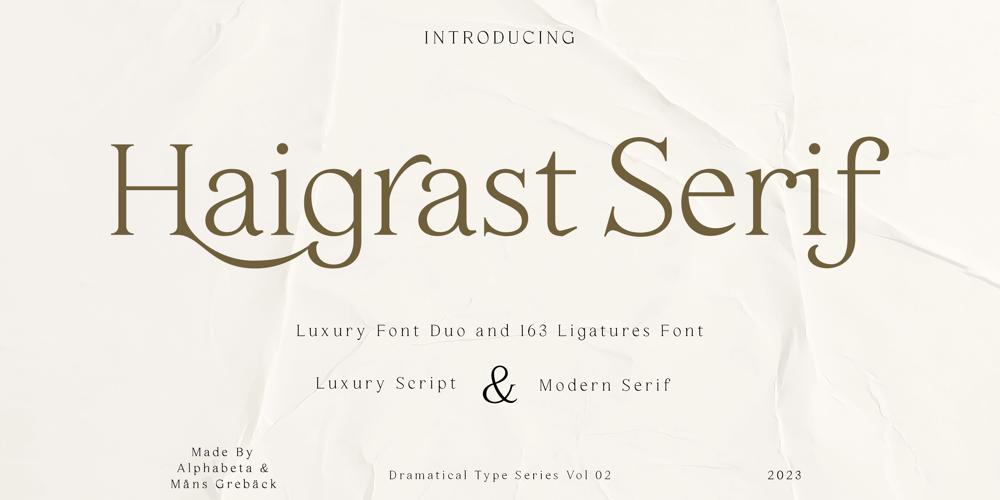
Haigrast Serif Font Family was designed by Måns Grebäck and published by Mans Greback. Haigrast Serif contains 6 styles and family package options. Haigrast Serif is a font that combines classic and modern design elements to create a look that is both tasteful and fashion-forward. This serif font is regular but with a very modern feel, making it the perfect choice for designers looking to add a touch of sophistication to their work. The sharp, crisp lines and swash alternates in addition to the decorative letterings add a unique touch, making Haigrast Serif a versatile font that can be used in a variety of projects. Whether you’re creating a stylish magazine layout, a cool fashion logo, or a balanced design piece, Haigrast Serif is the perfect font to make your work stand out. Designed by Mans Greback in 2023, this font is the perfect choice for designers who want to make a bold statement in their design work. The Haigrast Script family consists of six high-quality fonts:Regular, Italic, Bold, Bold Italic, Black and Black ItalicThe font is built with advanced OpenType functionality and has a guaranteed top-notch quality, containing stylistic and contextual alternates, ligatures and more features; all to give you full control and customizability. It has extensive lingual support, covering all Latin-based languages, from Northern Europe to South Africa, from America to South-East Asia. It contains all characters and symbols you’ll ever need, including all punctuation and numbers.